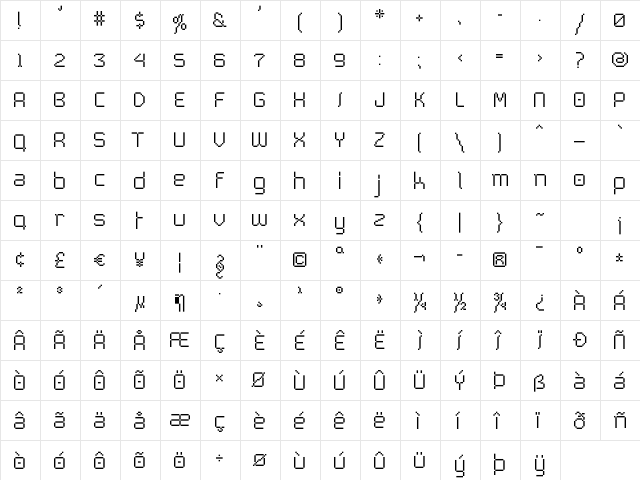
PixetlCondensed Regular
Design Context for PixetlCondensed Typeface
PixetlCondensed is a composed and adaptable typeface that performs quietly and consistently across a wide range of design contexts. The condensed width makes it efficient for tight spaces without sacrificing legibility.